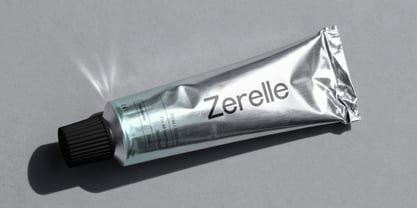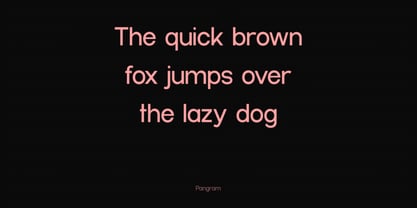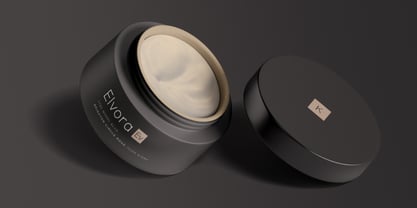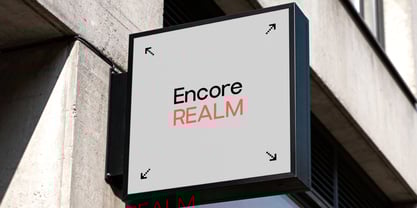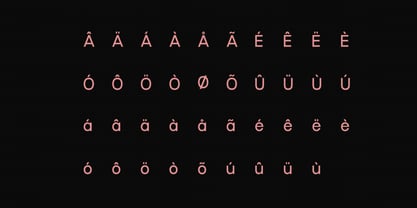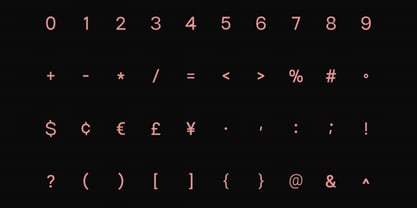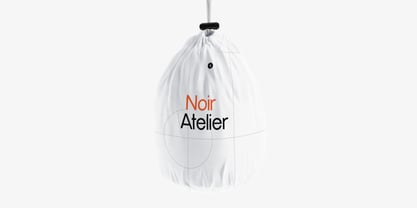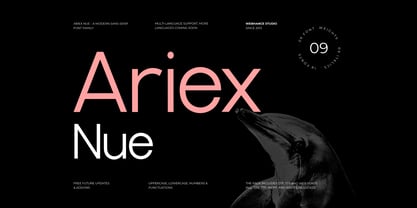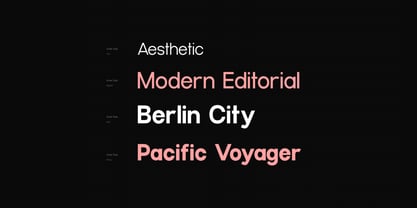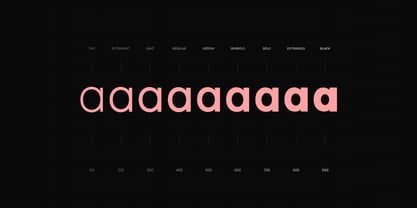
Ariex Nue
by Webhance
The Ariex Nue Font Family was designed by Ancy George and published by Webhance. Ariex Nue contains 18 styles and family package options.
Ariex Nue is a contemporary sans-serif font designed for branding projects, logo design, web design, and social media graphics. With its modern geometric style, Ariex Nue offers clear structure and excellent readability, making it an ideal choice for both print and digital applications. This unique font features a variety of weights and italics, ensuring versatility across multiple uses, from editorial design to signage. Ariex Nue's distinctive personality adds a touch of elegance and minimalism, perfect for luxury brands and clean editorial layouts. Whether you are creating a logo font, an Instagram font, or a webfont for your latest project, Ariex Nue provides a professional and consistent aesthetic. Its character support allows for diverse language options, making it suitable for global audiences. By choosing Ariex Nue, you are ensuring your design projects stand out with a clean and modern look that resonates with your audience.